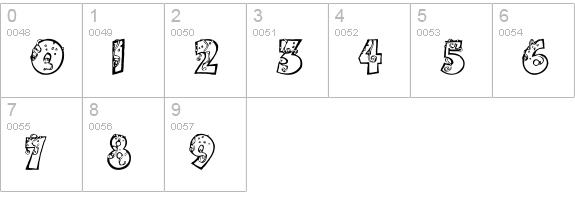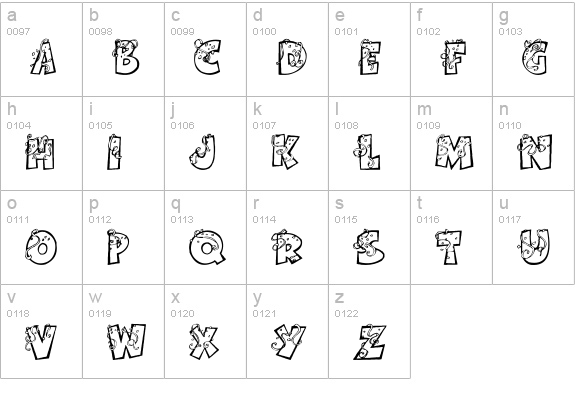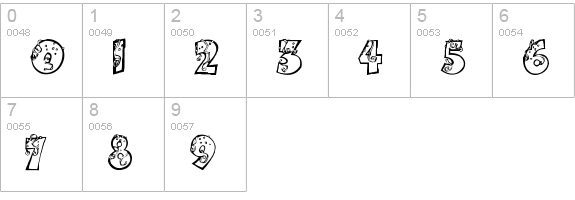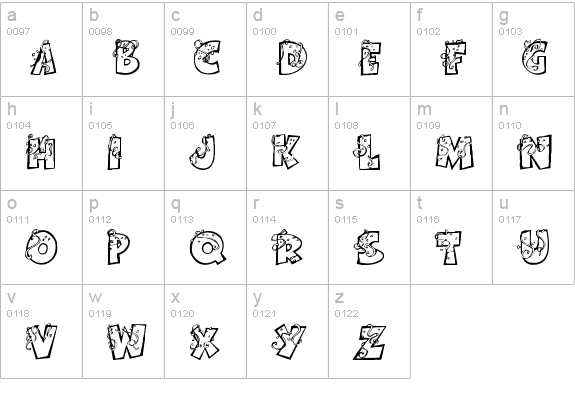
Party by Tom Font Details
Party by Tom is a vibrant and playful font that exudes energy and excitement. With its lively curves and dynamic strokes, this font is perfect for adding a touch of fun and celebration to any project. Whether you are designing invitations for a birthday party, creating eye-catching posters for a music festival, or simply looking to inject some liveliness into your branding, Party by Tom is the ultimate choice. What makes Party by Tom even more enticing is that it is freely available to download at FontsMarket.com. Yes, you read that right - this fantastic font can be yours at no cost! Now you can bring the party vibes to your designs without breaking the bank. With Party by Tom, you can unleash your creativity and create stunning visuals that will captivate your audience. Its bold and cheerful nature will instantly grab attention and leave a lasting impression. The versatility of this font allows it to be used across various design projects, from logos and headlines to social media graphics and event promotions. So why wait? Get the party started with Party by Tom! Download it for free at FontsMarket.com and let your imagination run wild. With this font in your toolkit, there are no limits to the fun and excitement you can bring to your designs.